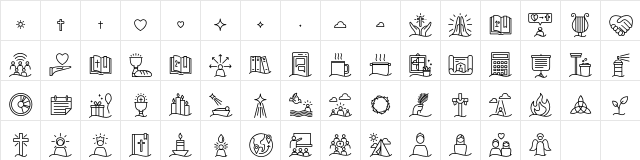
Liturgica Medium
Design Context for Liturgica Typeface
Liturgica is a composed and adaptable typeface that performs quietly and consistently across a wide range of design contexts.
Pro Tip: Pair Liturgica with a font of contrasting weight or personality to build a more expressive typographic hierarchy.